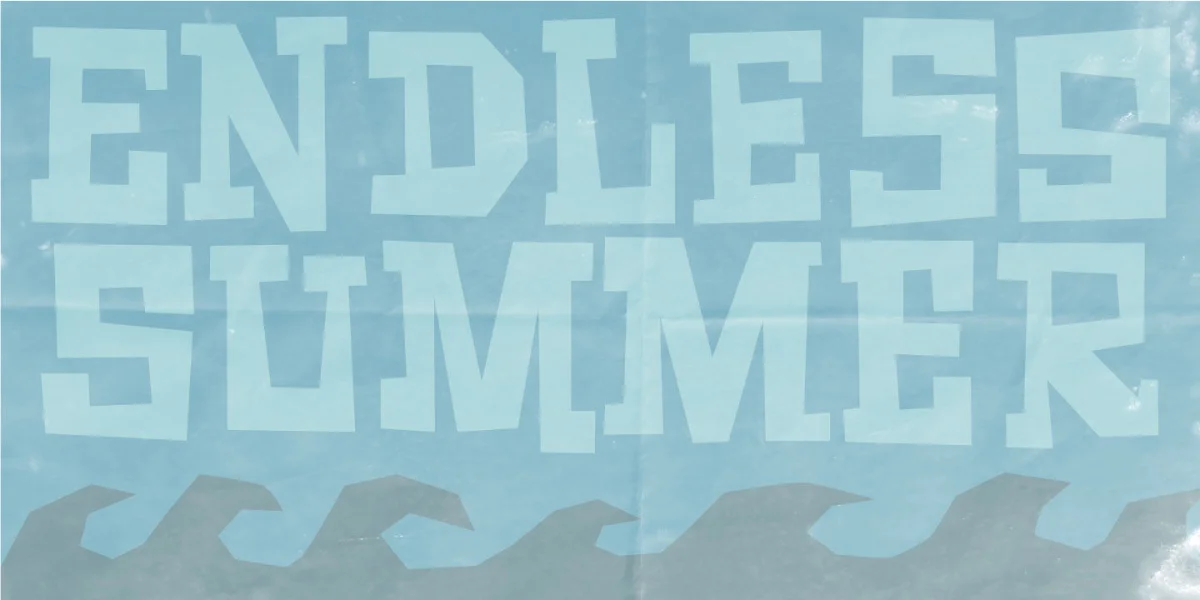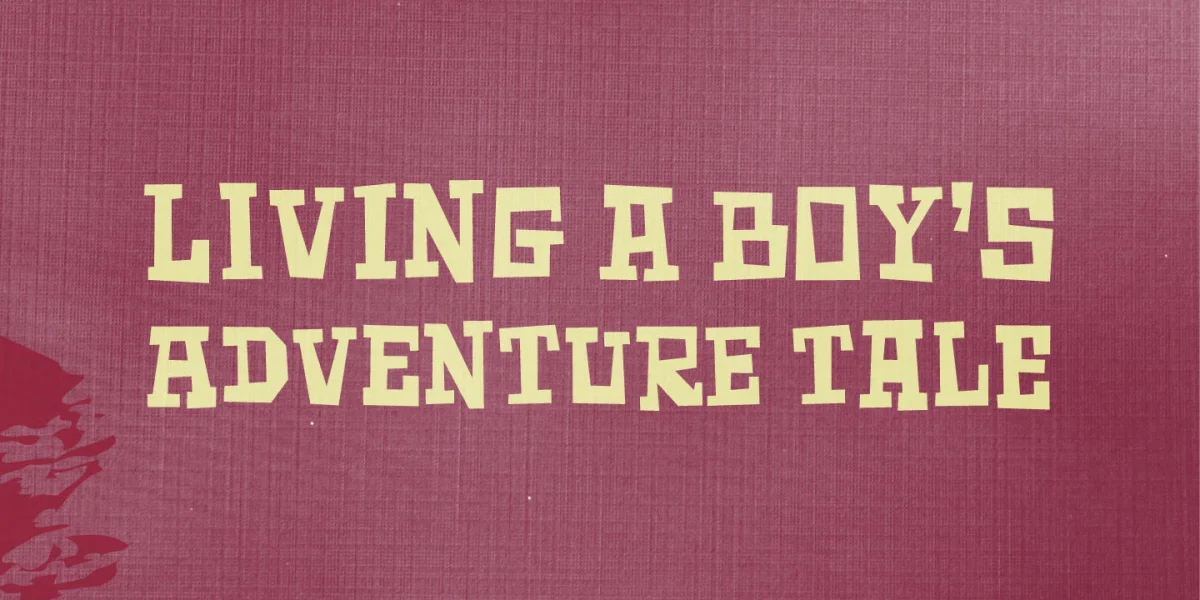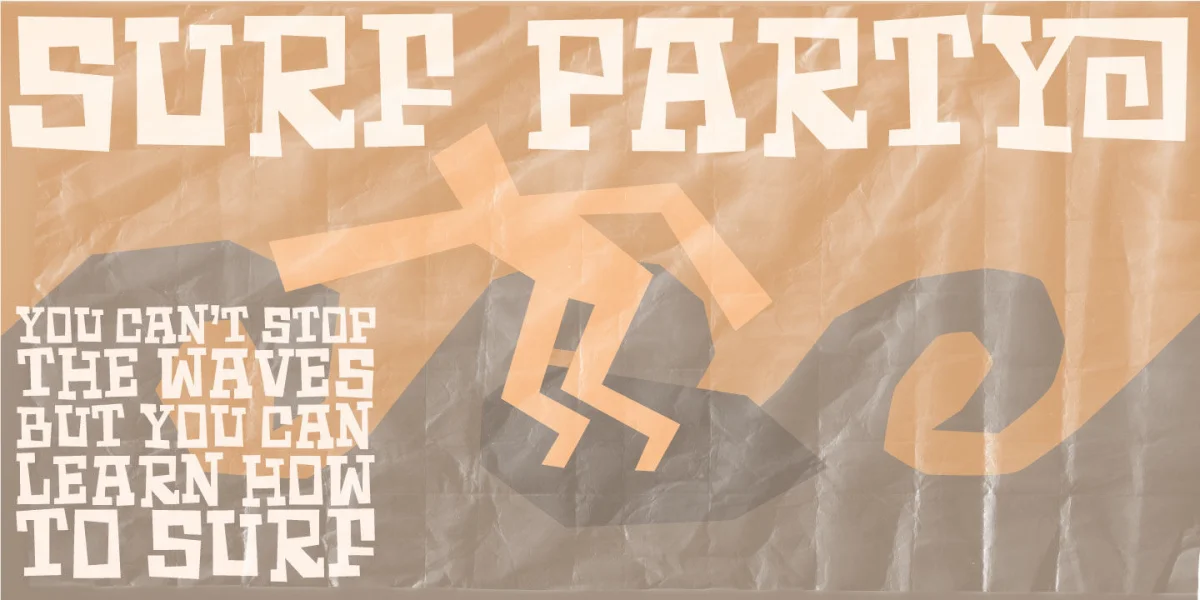
Surfing Ashtray was inspired by old surfer movie posters from the 60’s. Surfing Ashtray consists of straight lines only - ironically the direct opposite of the ocean waves that was a part of the inspiration of this font!
Hit the waves with extra ligatures for double letters, swashes and alternate letters (only available in the shareware version!)